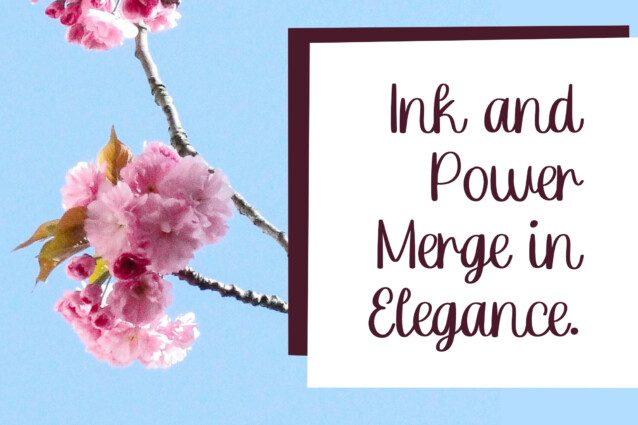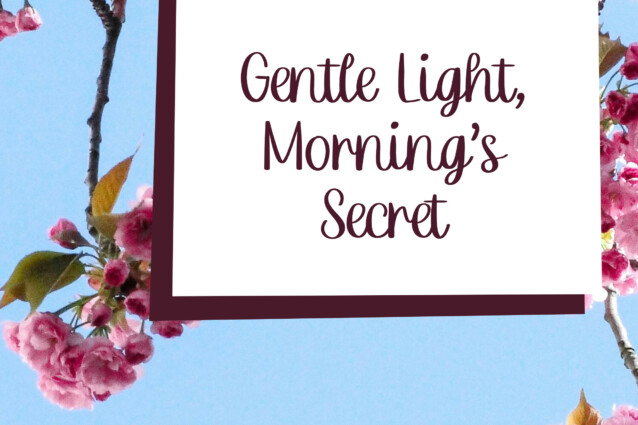
Crown Quil Script Font
Crown Quil Script Font is a delightful and versatile handwritten font. Perfect for all your needs, whether it’s crafting, digital design, presentations, or creating greeting cards. With its charming and distinctive style, Crown Quil adds a unique and creative touch to every project, making your work stand out with personality and flair!